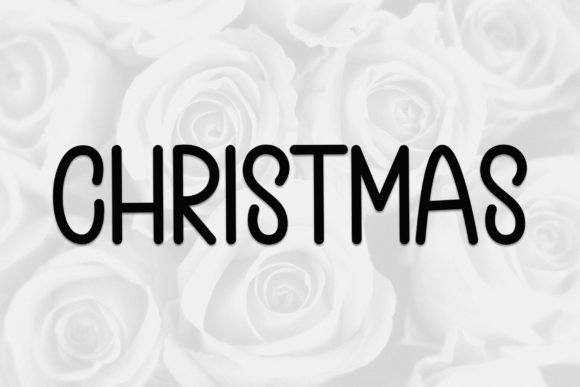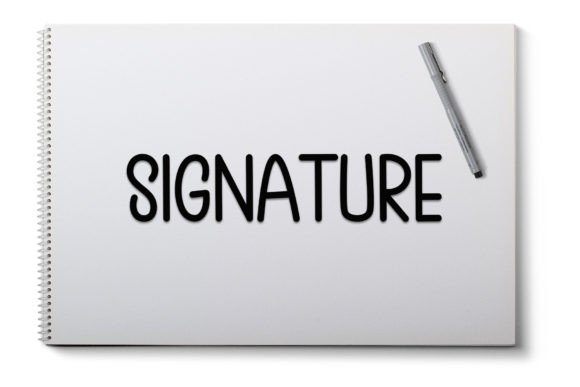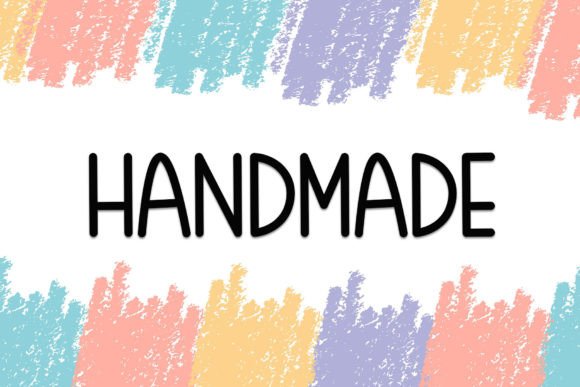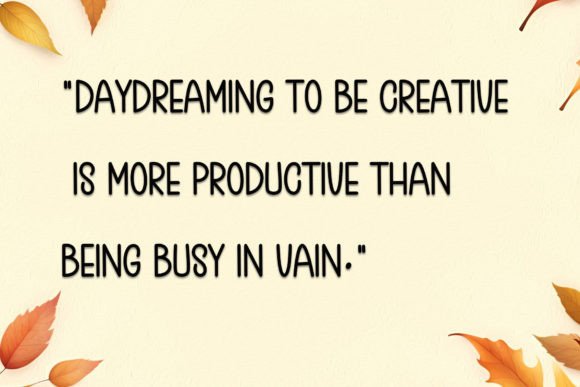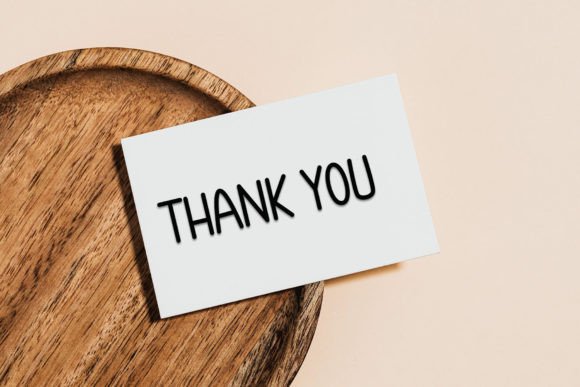
The Boho Font: A Timeless Elegance for Your Designs
Have you ever been in the middle of a design project, and suddenly, you just can’t seem to find the right font? I recall a particularly frustrating experience when a client asked for a elegant, handwritten font that would make their branding stand out. After hours of searching, I stumbled upon the Boho font, and it was love at first sight! ✨
Boho is a neat and beautiful handwritten font described by an elegant touch, perfect for your favorite projects. Its incredibly distinct and timeless style makes it an excellent choice for designers, crafters, and creative hobbyists looking to add a touch of sophistication to their work.
An Honest Review of Boho Font
What I Love About Boho Font
• ✨ Elegant and refined aesthetic that’s perfect for high-end designs
• ✅ Highly legible, even at small font sizes
• 💫 Supports OpenType features, glyphs, and stylistic alternates for added versatility
• 🎨 Works beautifully for both digital and print designs
While Boho font is an excellent choice, there are a few things to keep in mind: 🤔
• ⚠️ Limited availability of condensed or italic versions, which might limit its use in certain projects
• ⚠️ Some users may find the font a bit too ornate for very casual or playful designs
The Story Behind Boho Font
While the true origins of Boho font are unclear, it’s likely that it was inspired by traditional calligraphy and hand-lettering techniques. The font’s creator may have been a designer or typographer with a passion for elegant, handwritten scripts. 💫
The result is a font that’s both timeless and versatile, suitable for a wide range of design projects.
Q: What type of designs is Boho font best suited for?
A: Boho font is perfect for high-end branding, formal events, and creative projects that require an elegant touch.